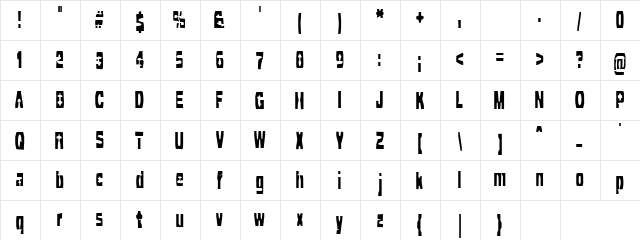
Starry Pool Regular
Design Context for Starry Pool Typeface
Starry Pool offers clean, dependable letterforms without strong stylistic allegiance, making it a practical choice for designers who need flexibility.